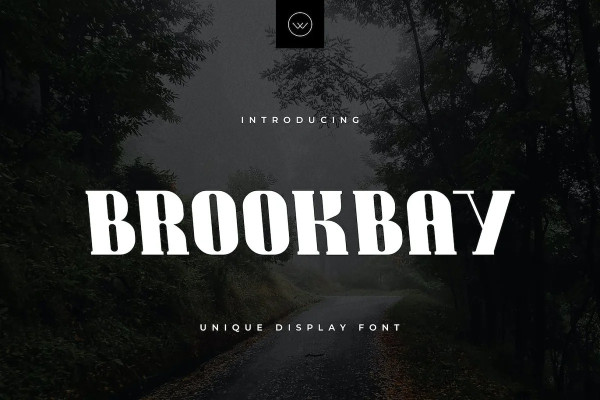
Brookbay Font
Brookbay font offers versatility and finds utility in various domains, including graphic design, text presentation, web and print design, as well as display applications. Its suitability shines particularly in crafting and branding logos, marketing materials, banners, posters, signage, corporate identities, and editorial designs.